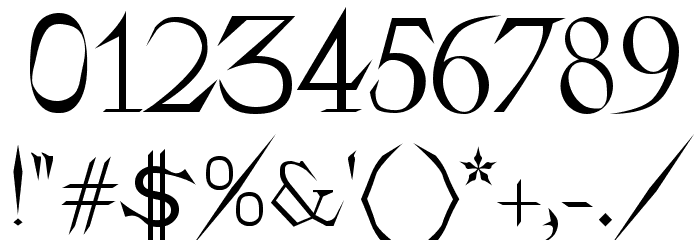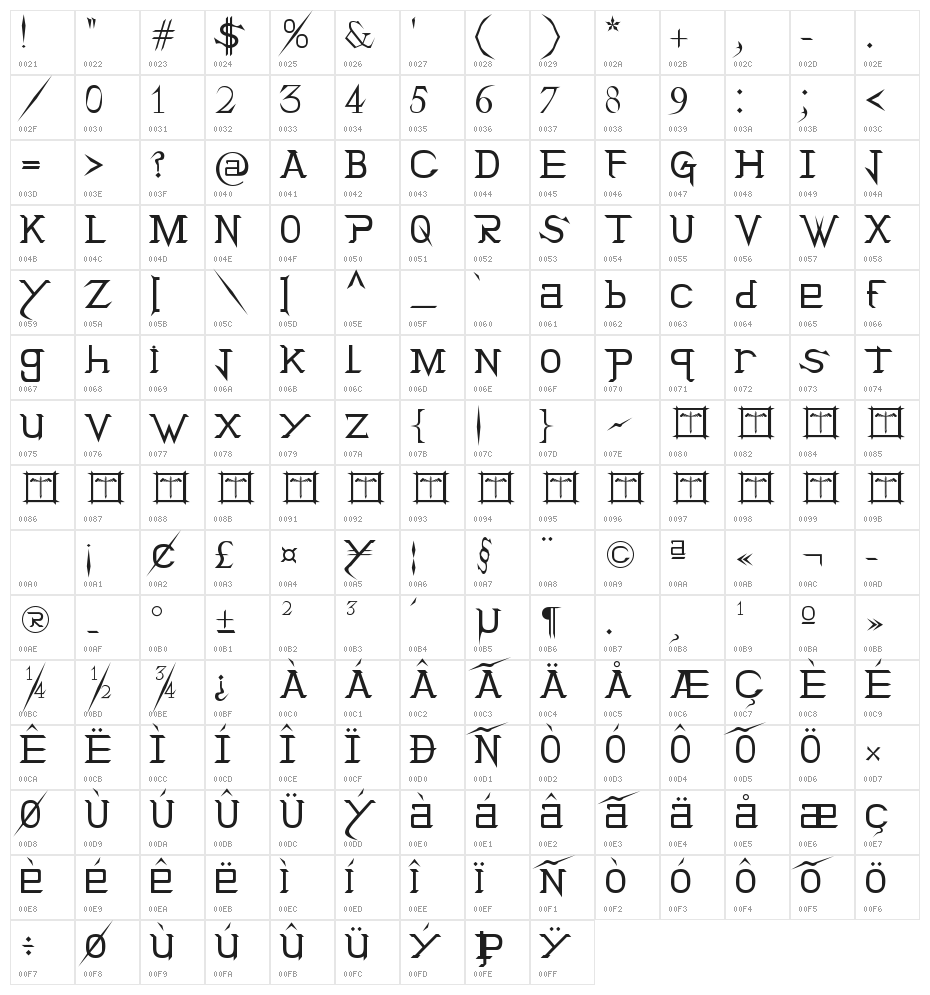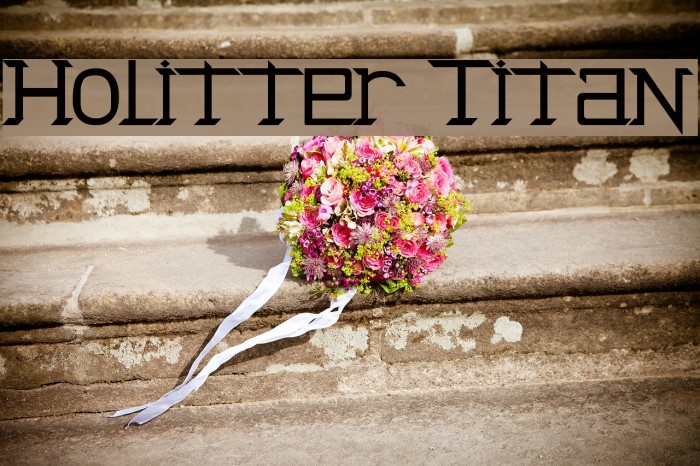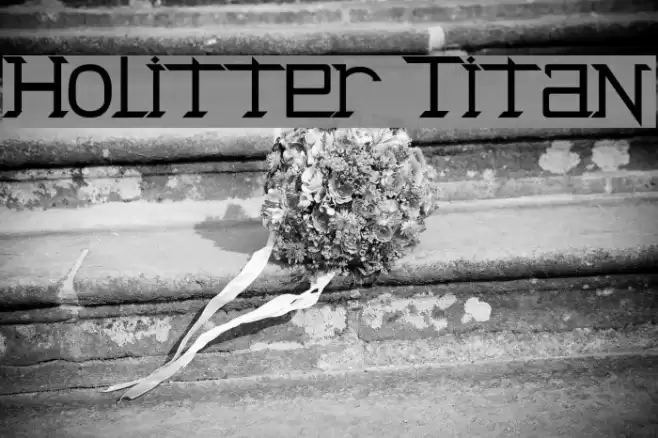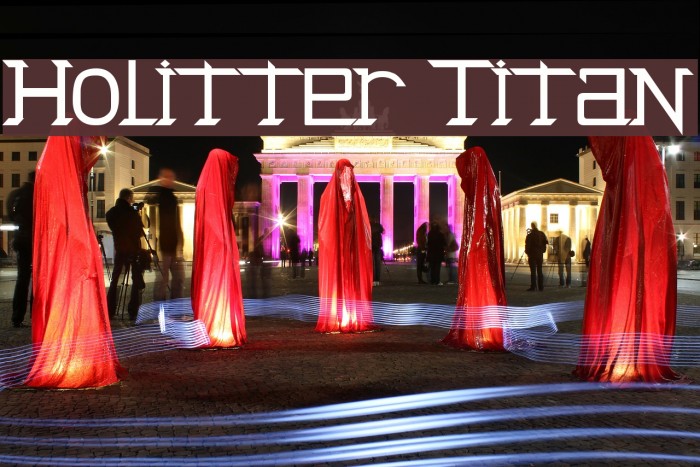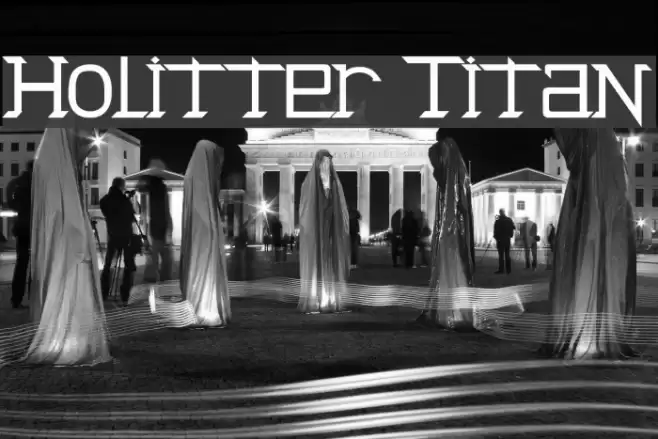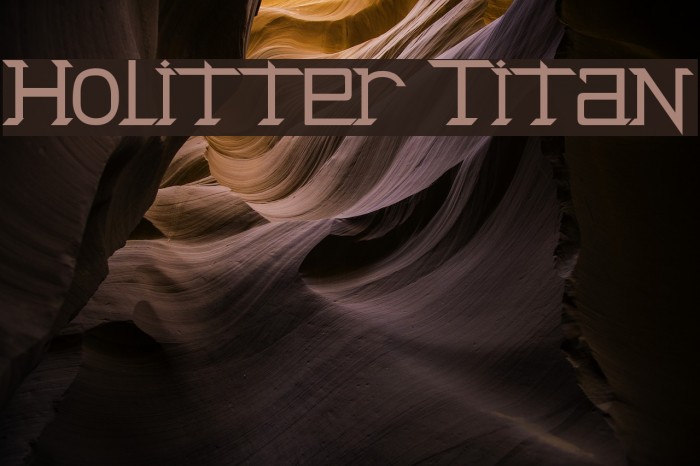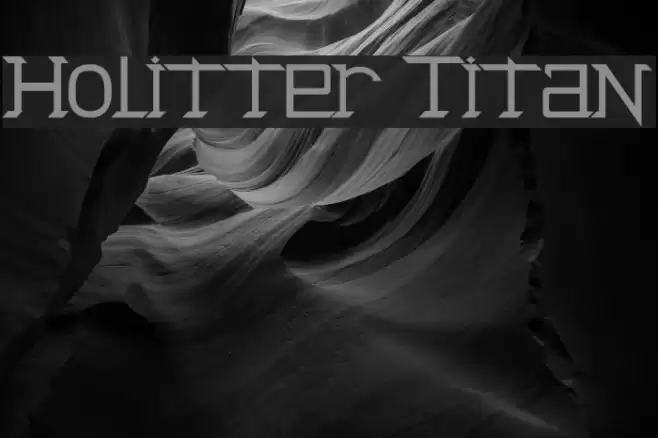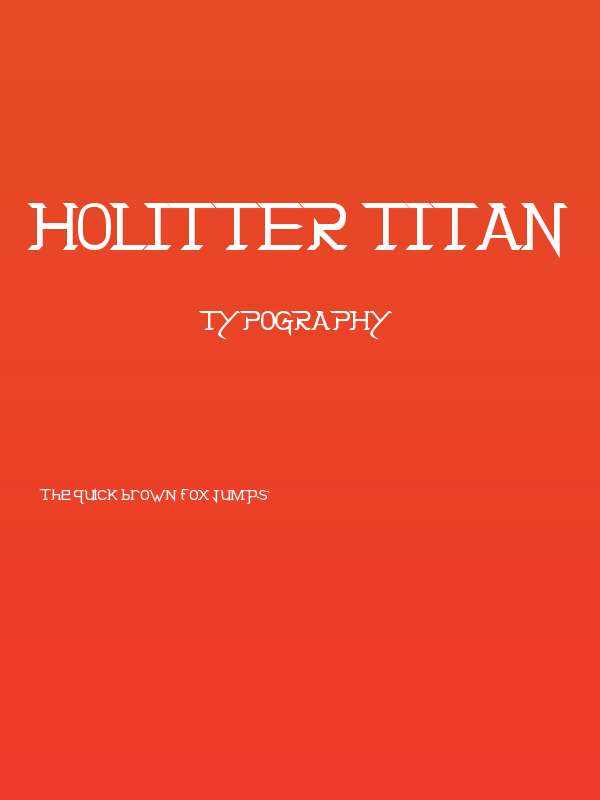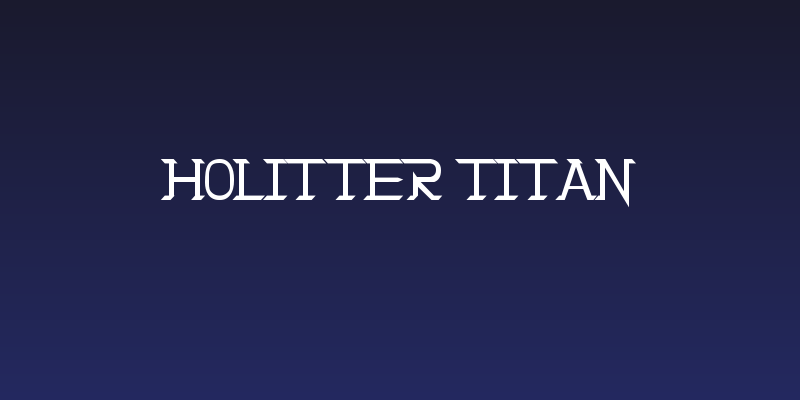
Holitter Titan Font
Holitter Titan Description
This font features a bold and striking design with sharp, angular edges and a futuristic aesthetic. The uppercase letters are particularly distinctive, with unique cuts and slashes that give them a dynamic and aggressive look. The lowercase letters maintain this angular style, creating a cohesive and visually impactful typeface. The numerals are equally stylized, with a consistent angular theme that runs throughout the font. Special characters are designed with the same attention to detail, ensuring they fit seamlessly with the rest of the character set. This font is perfect for projects that require a modern and edgy appearance.
| Overall Style | Futuristic, Edgy |
| Proposed Projects | Ideal for sci-fi themed designs, video game titles, tech branding, and modern posters. |